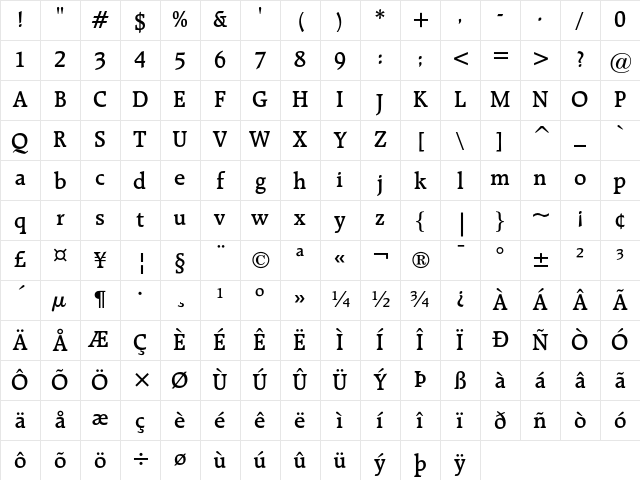
Raleigh Demi Bold
Style: Demi Bold
Raleigh Family
Raleigh Demi Bold
Complete Raleigh Demi Bold glyph index. Displaying only characters natively supported by Raleigh Demi Bold font.
Design Context for Raleigh
Raleigh is a composed and adaptable typeface that performs quietly and consistently across a wide range of design contexts. Its bold stroke weight gives it real presence on the page.